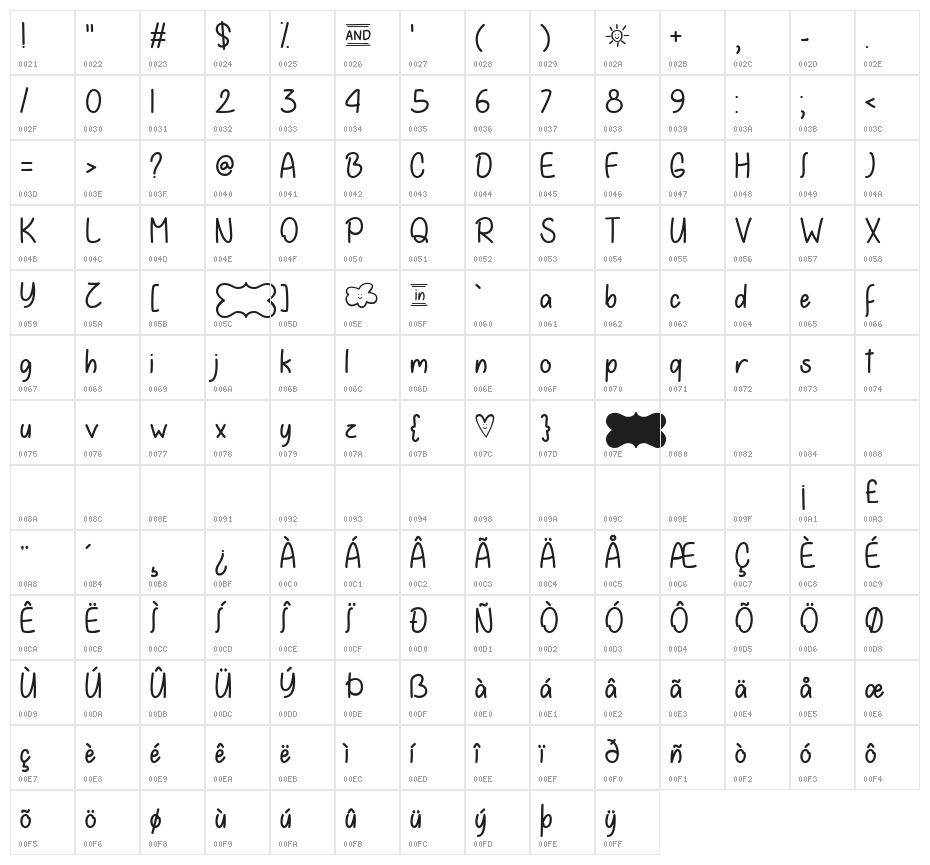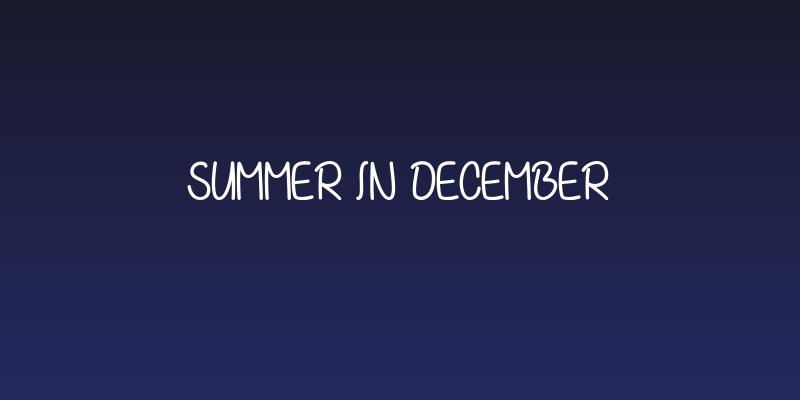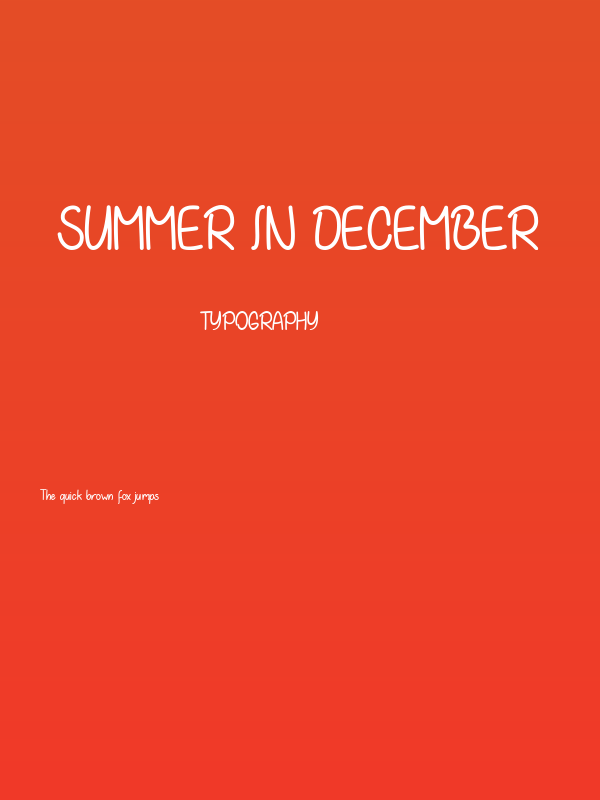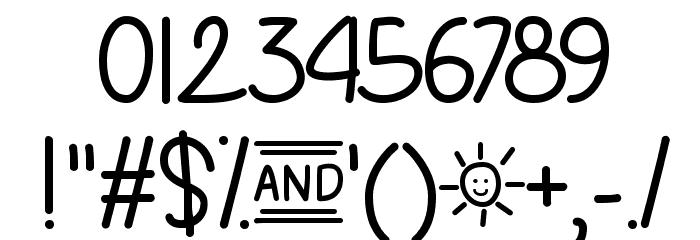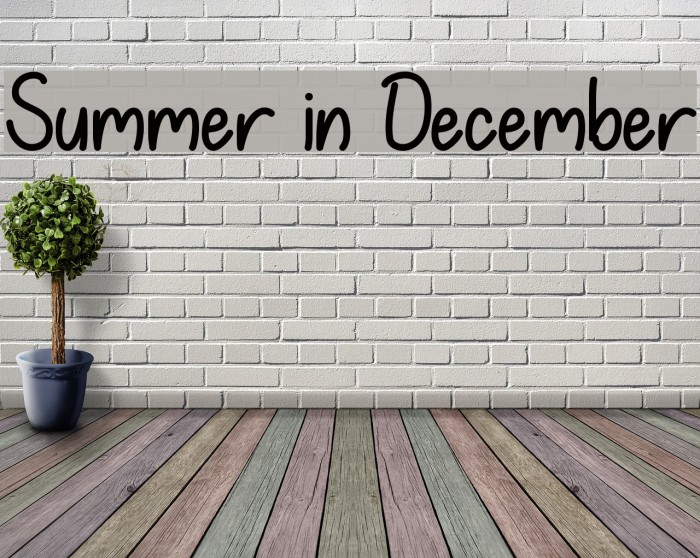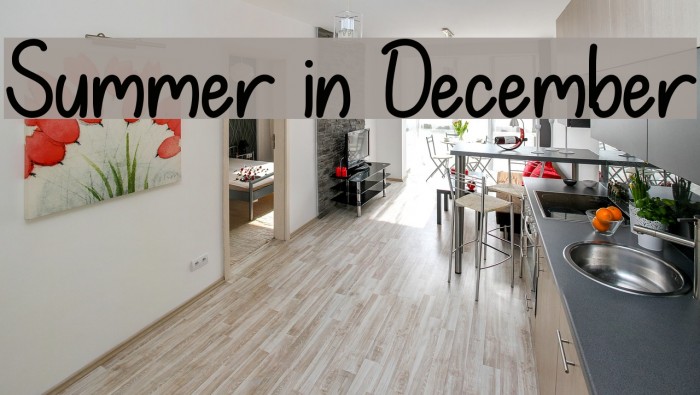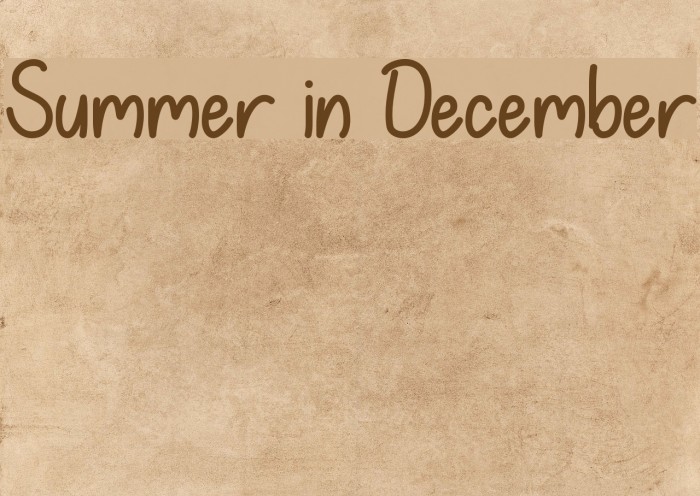
Summer in December Font
Summer in December Description
This playful and whimsical font features a handwritten style with rounded, smooth edges, giving it a friendly and approachable appearance. The characters are slightly elongated, adding a touch of elegance while maintaining a casual vibe. The uppercase and lowercase letters are well-balanced, with consistent stroke widths that provide a harmonious look. The numerals and special characters are designed to match the overall style, ensuring versatility across different uses. This font's unique charm makes it suitable for projects that require a personal touch or a fun, informal tone.
| Proposed Projects | Ideal for greeting cards, children's books, playful branding, and social media graphics. |